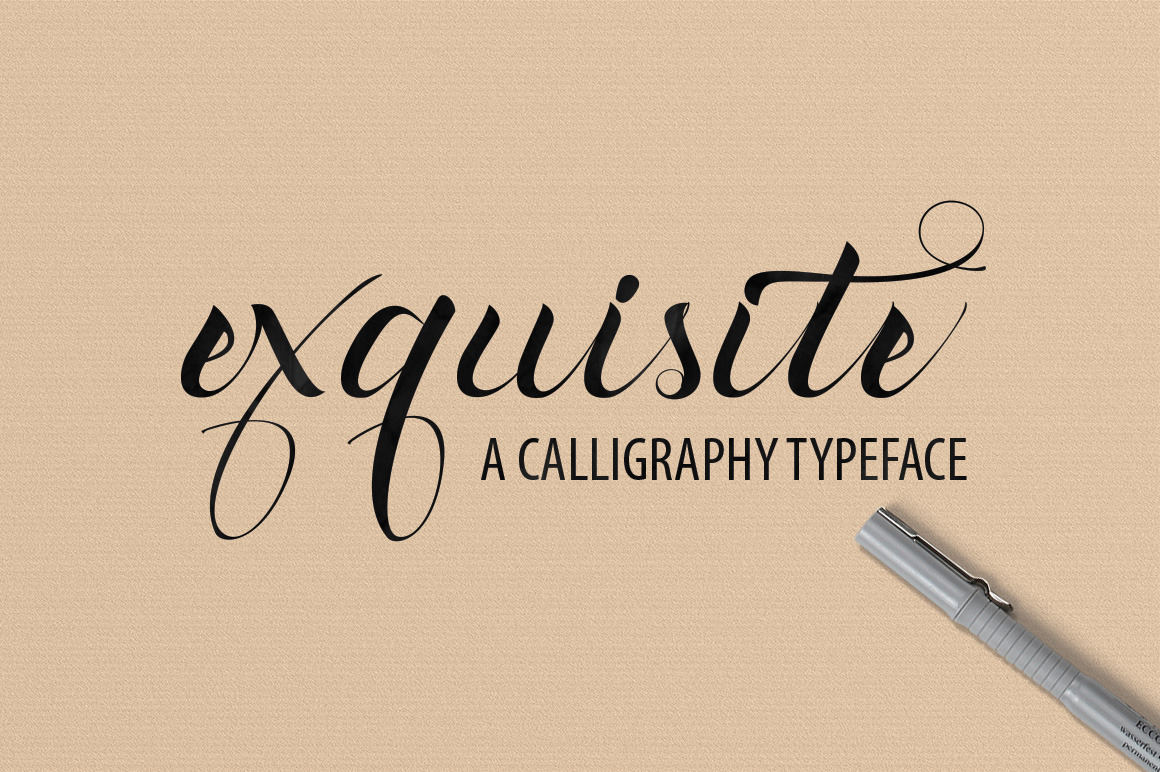
Exquisite Typeface
Exquisite is an awesome handwriting script. Suitable for wedding invitations, greeting cards, design of water-based paints, correspondence, and a variety of other purposes.